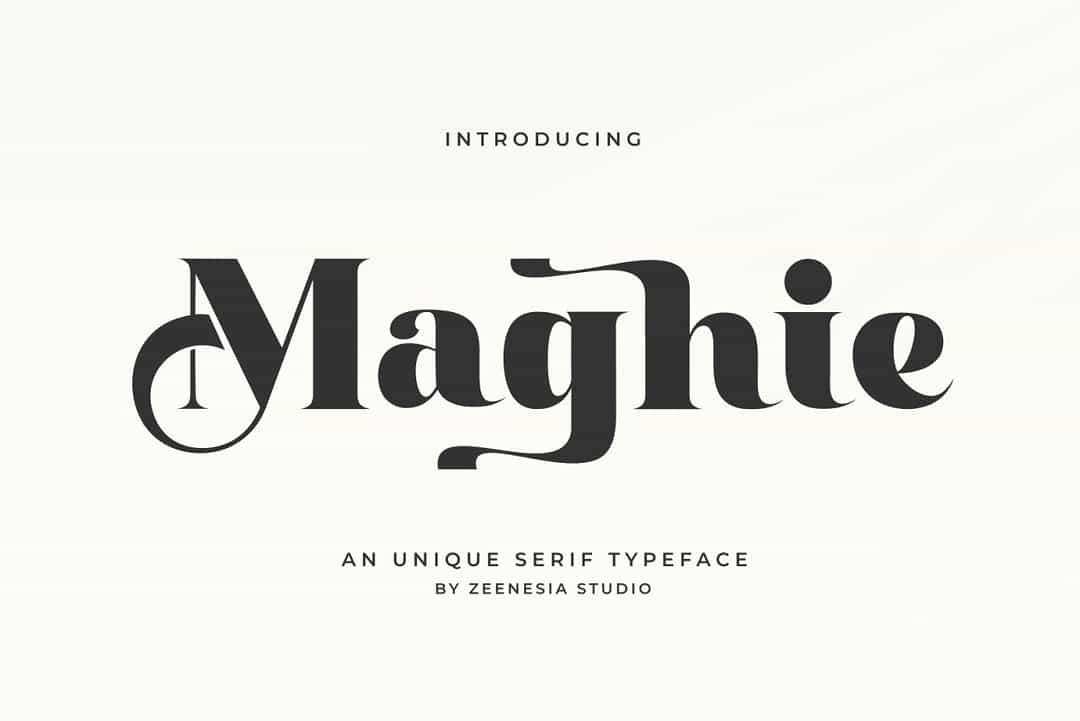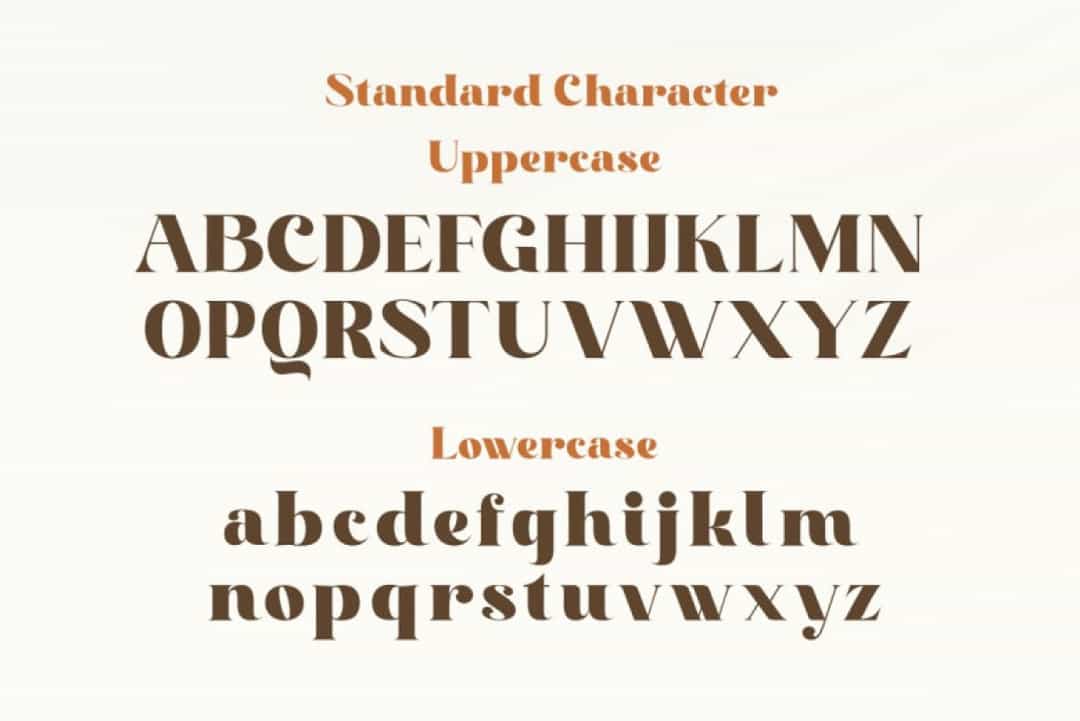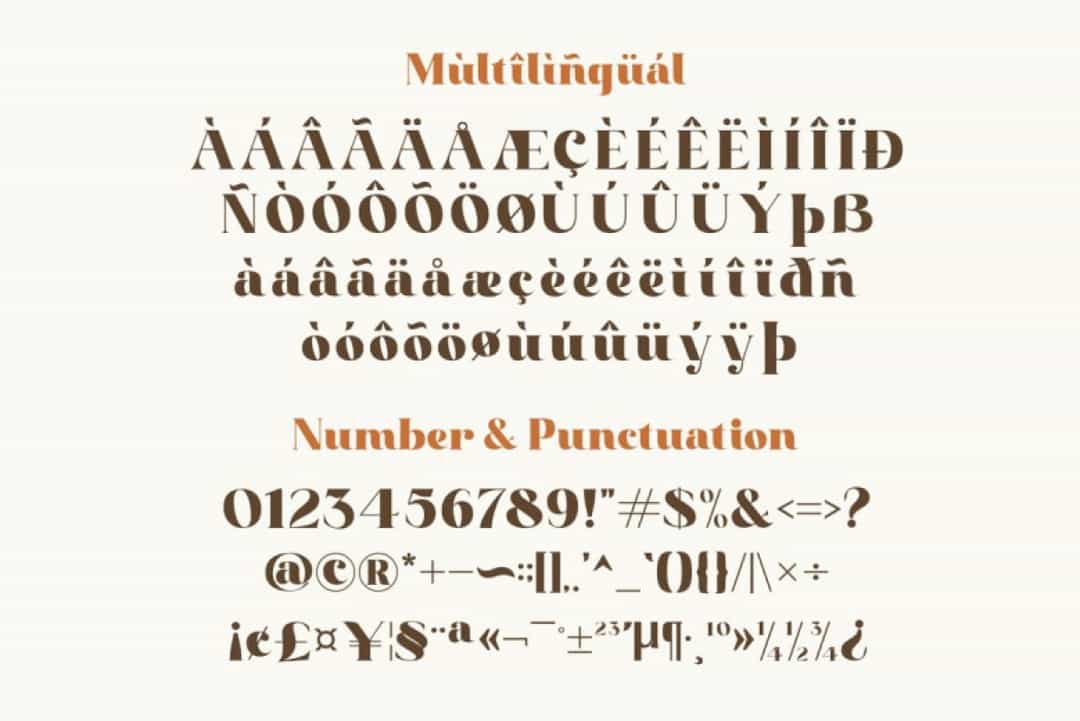
Maghie is a contemporary and distinctive serif typeface. Maghie works well at large sizes, and makes an impressionful first impression in branding, advertising packaging, logotypes, headlines titles as well as editorial designs.